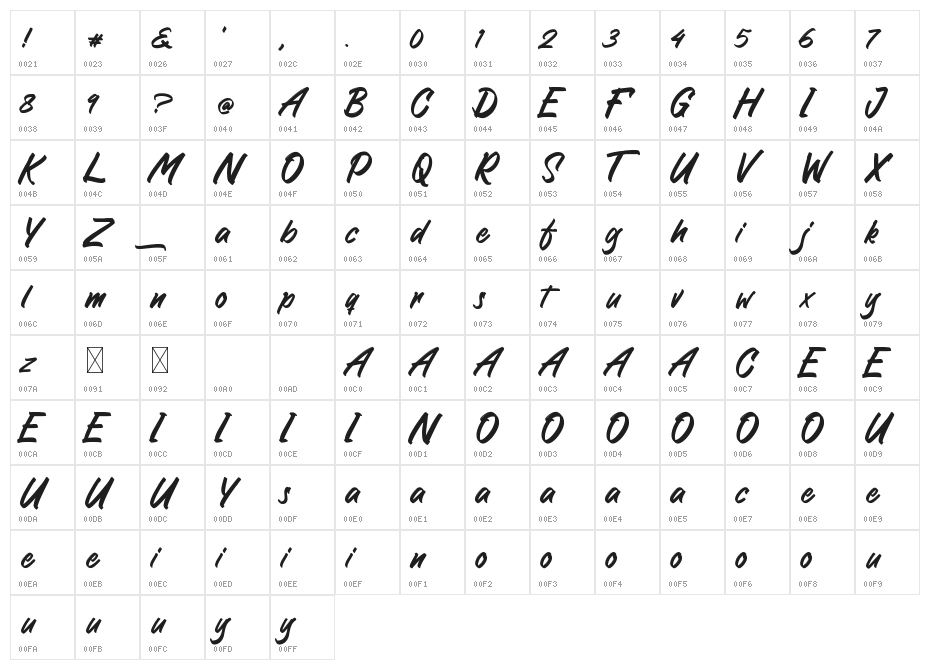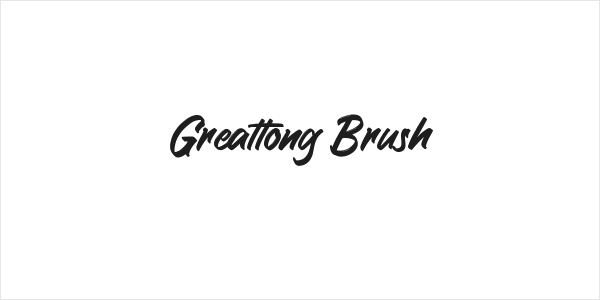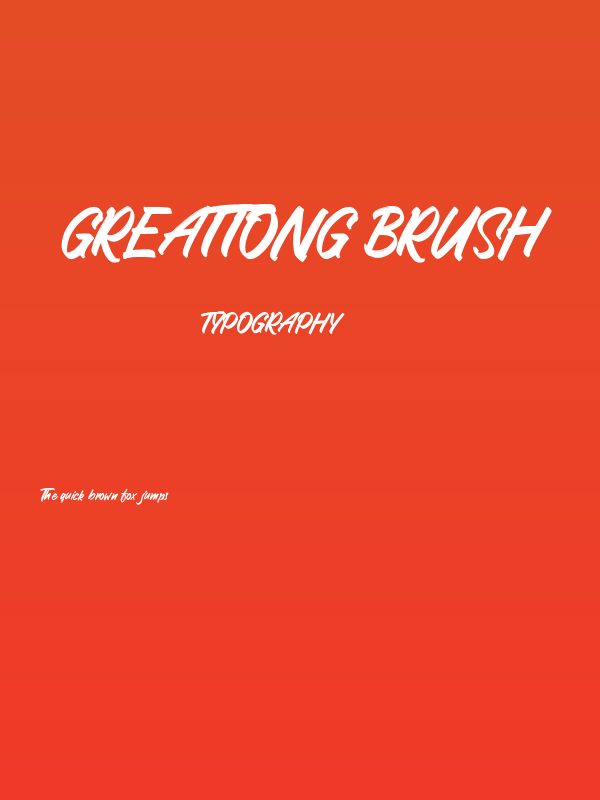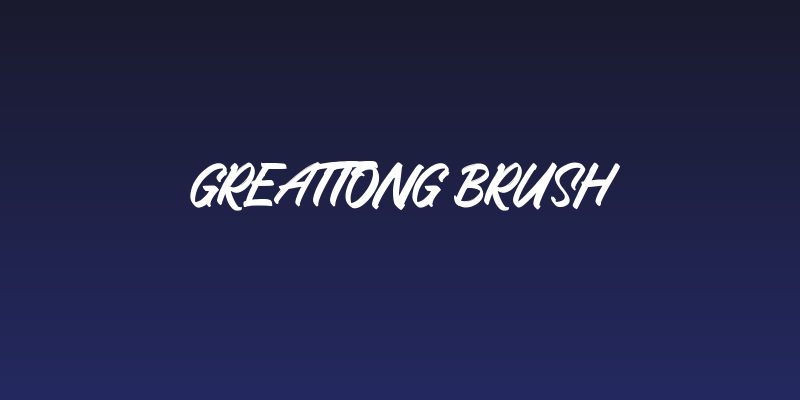
Greattong Brush Font
Greattong Brush Description
This font features a dynamic and expressive brush style, characterized by bold, sweeping strokes that convey a sense of energy and movement. The uppercase and lowercase letters are crafted with a fluid, hand-drawn appearance, giving the text a personal and artistic touch. The numbers and special characters maintain the same lively aesthetic, ensuring consistency across all elements. The overall design is both modern and playful, making it suitable for projects that require a touch of creativity and flair.
| Proposed Projects | Ideal for branding, posters, invitations, and any creative design projects that require a lively and artistic touch. |